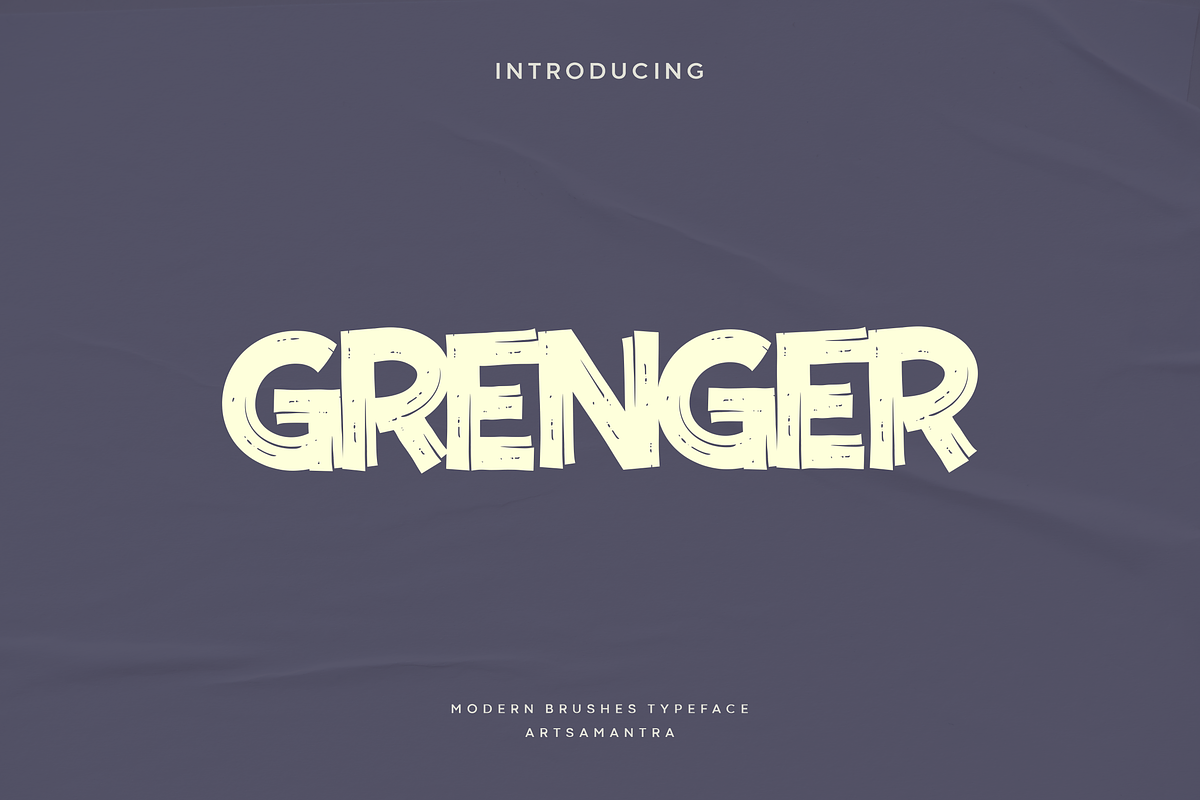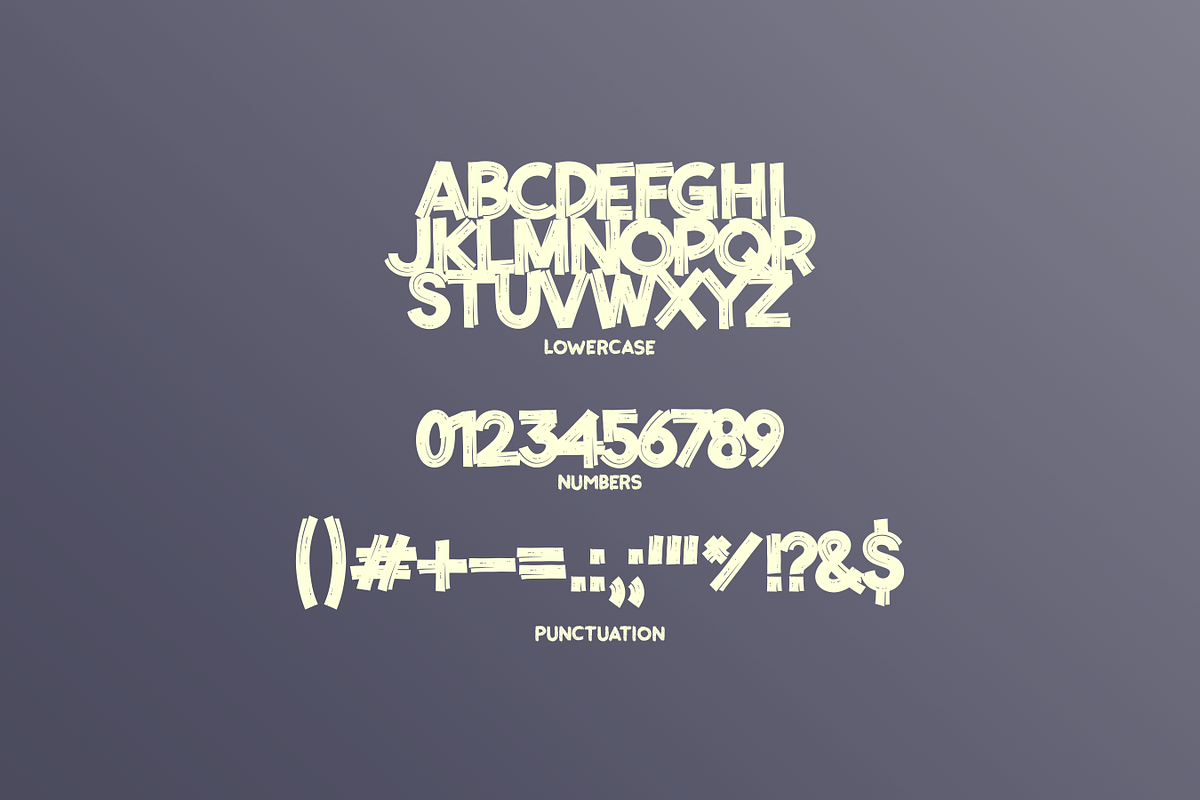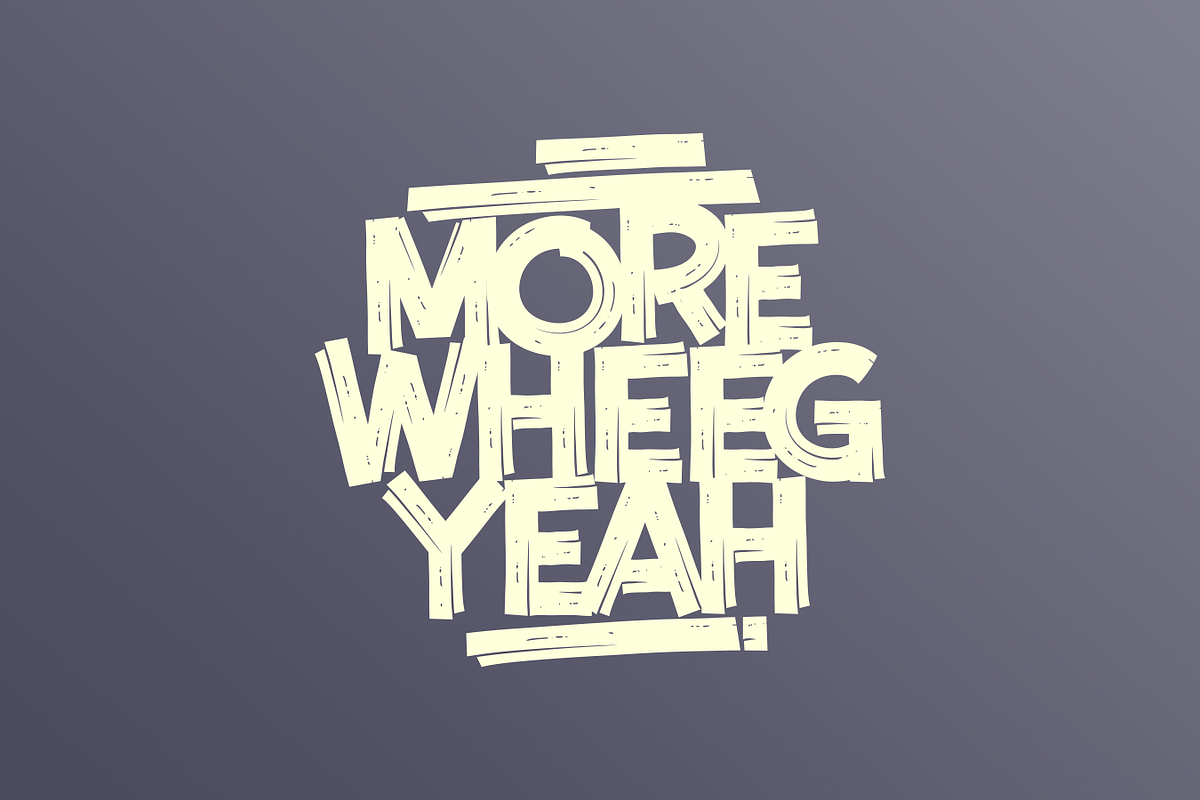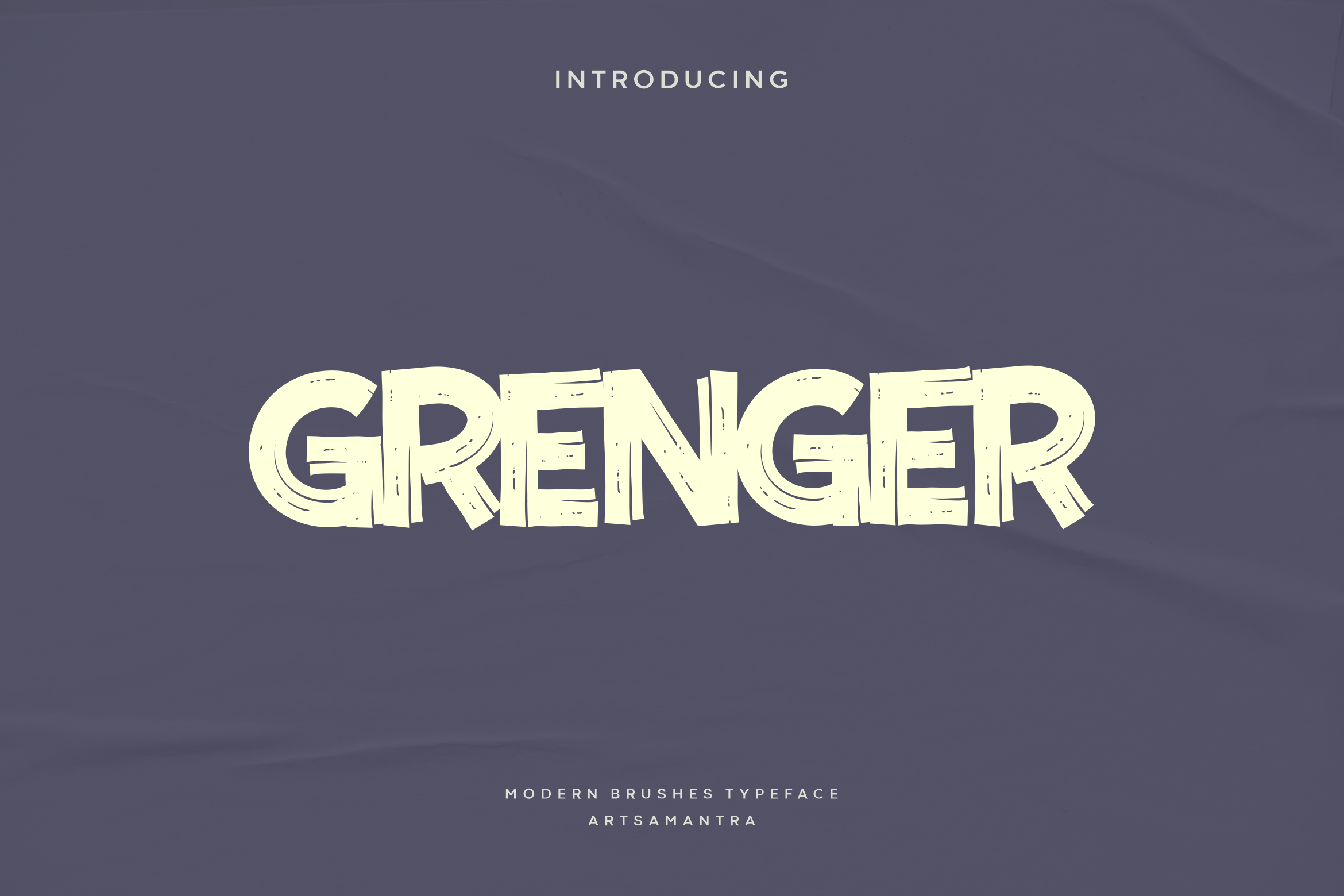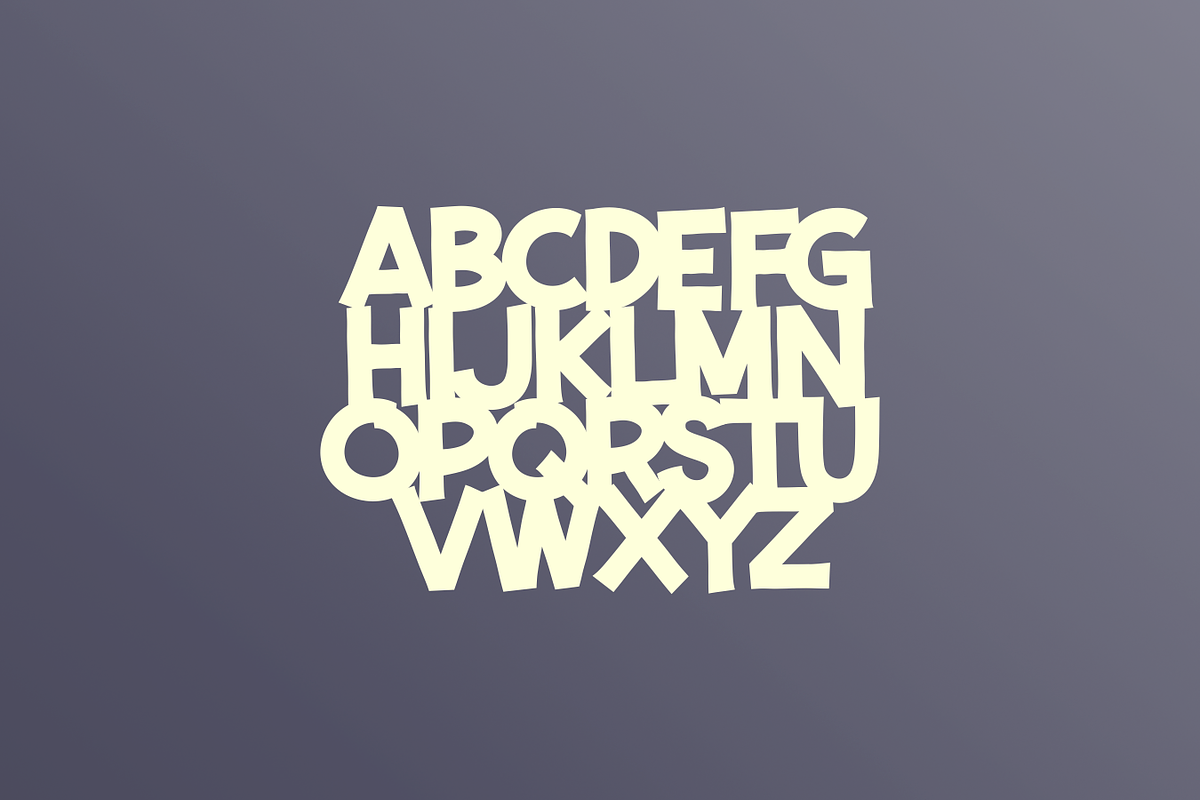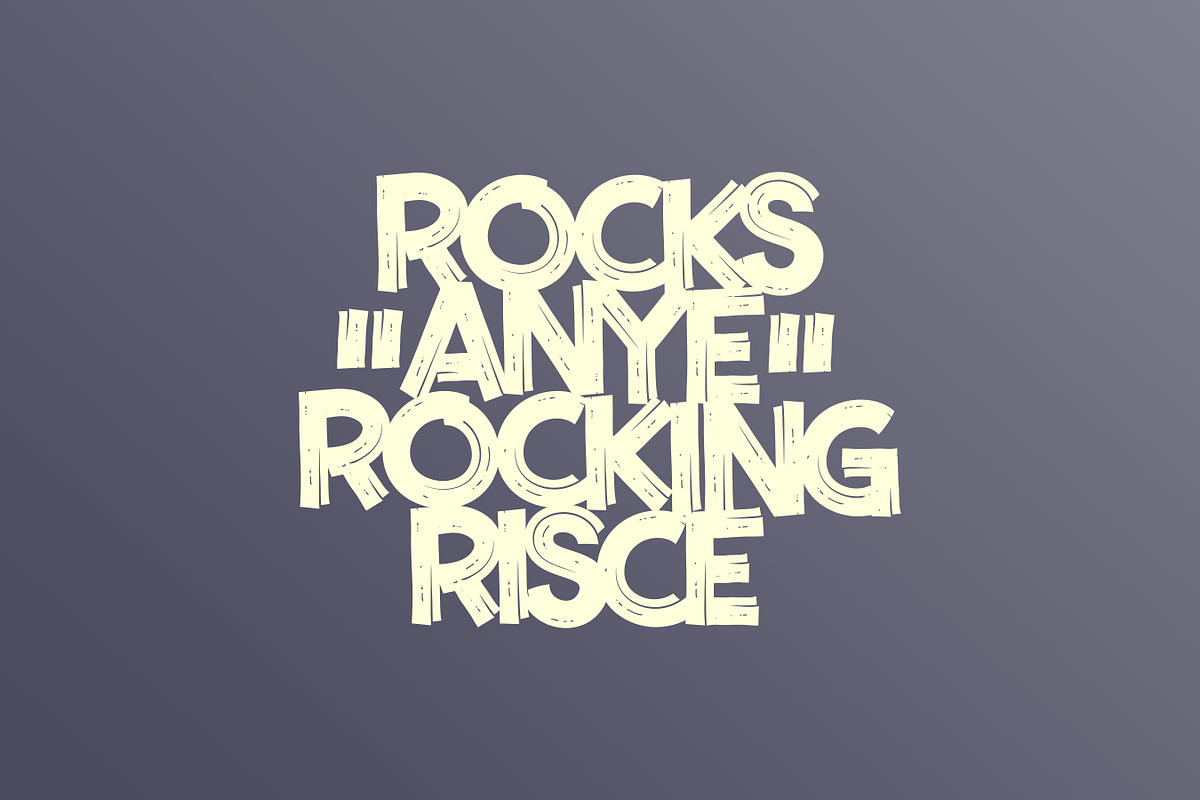
Grenger - Modern Brush Typeface
Grenger is a font with a distinctive handwritten character that is perfect for branding projects, the modern brush typeface makes it look very dynamic and cool. Grenger font is suitable for logo, poster and any design that you create, grab it for a different and prominent design experience.